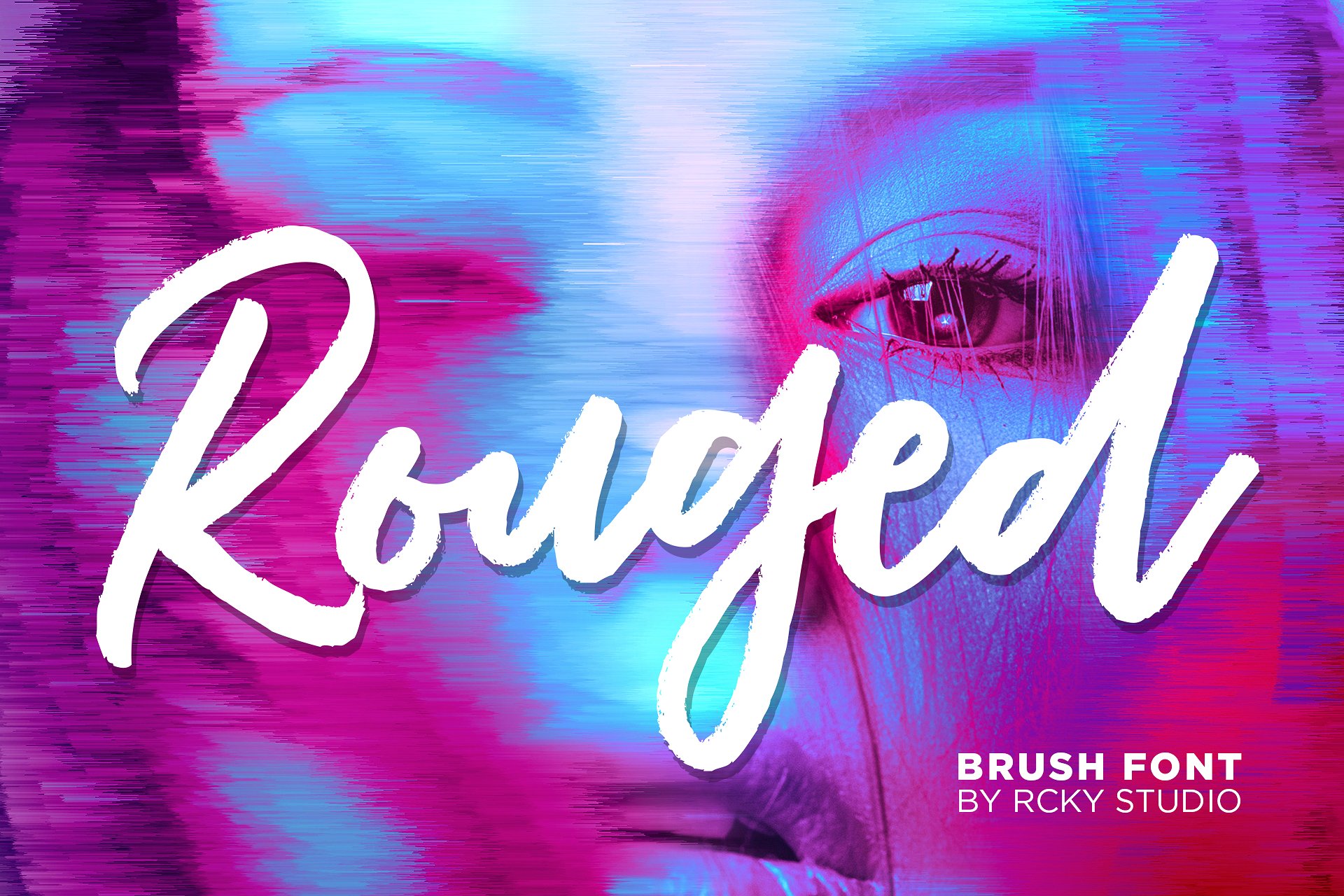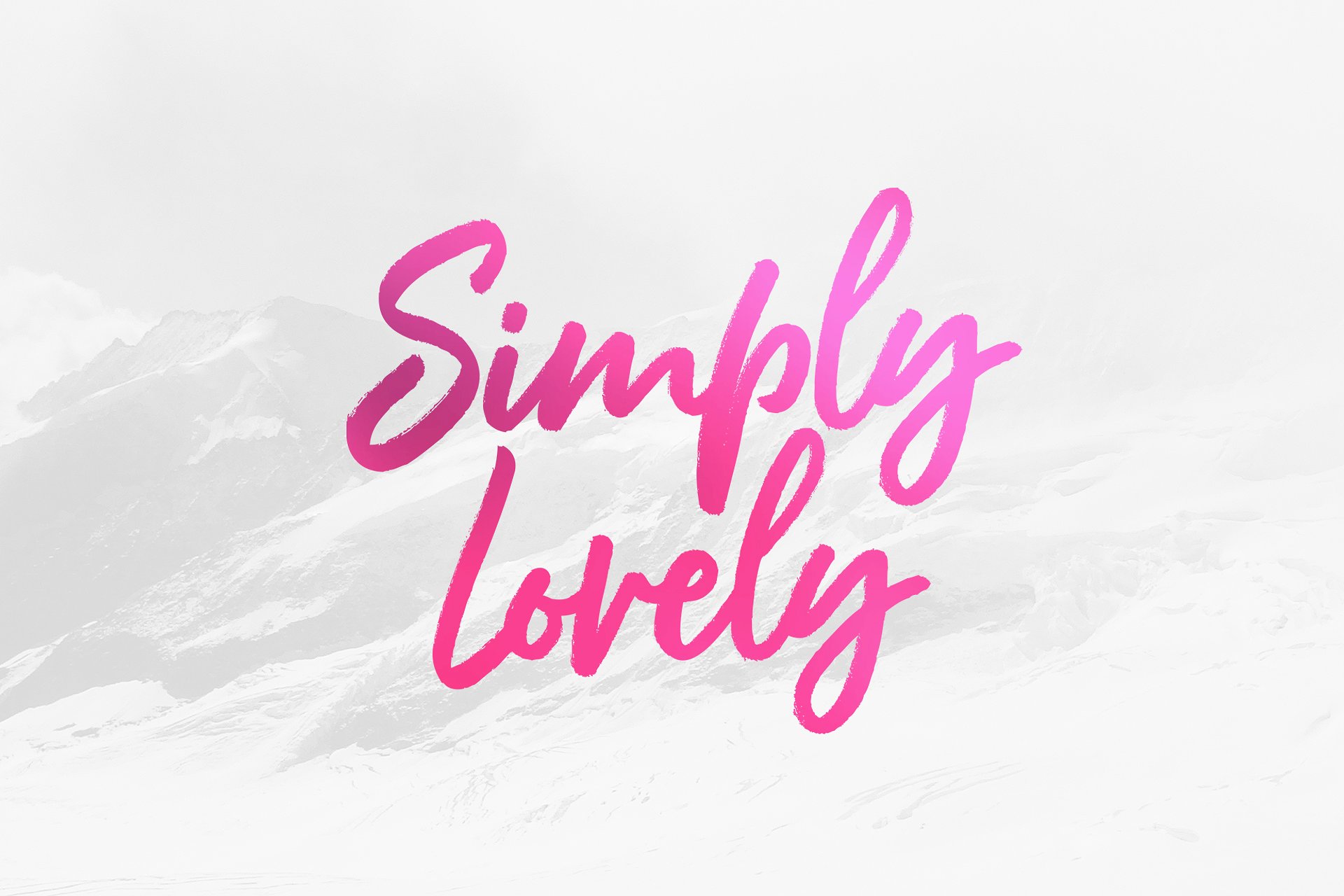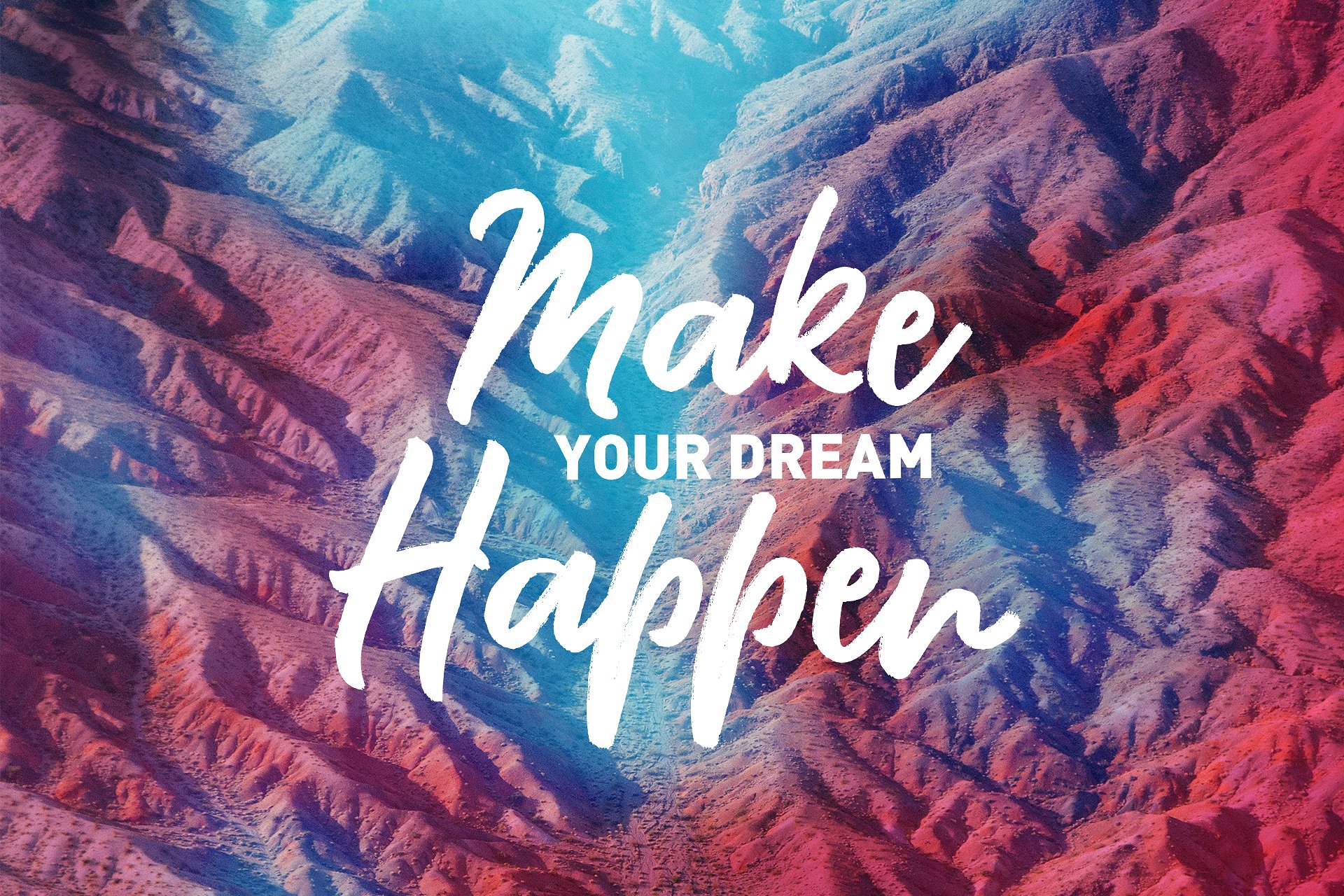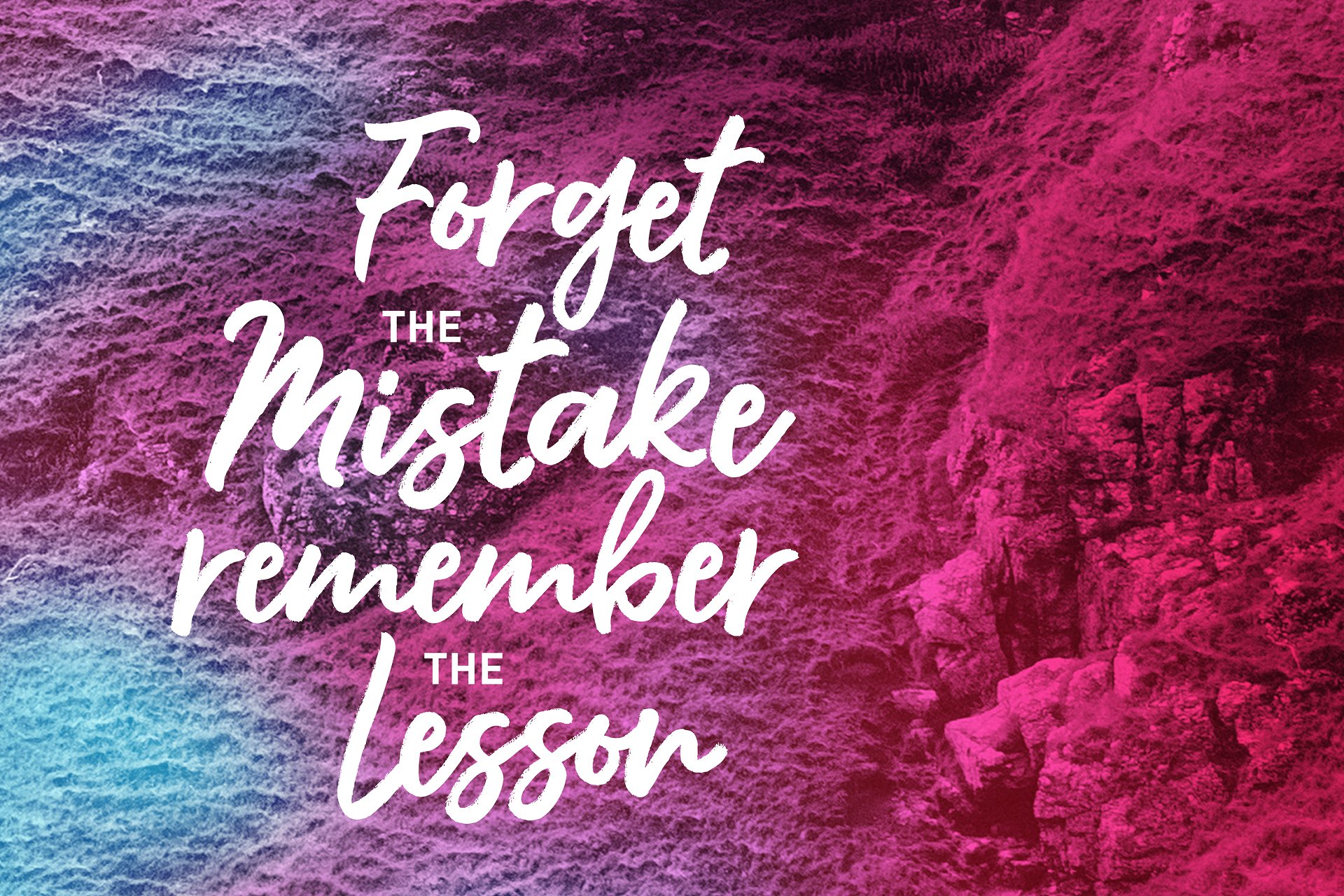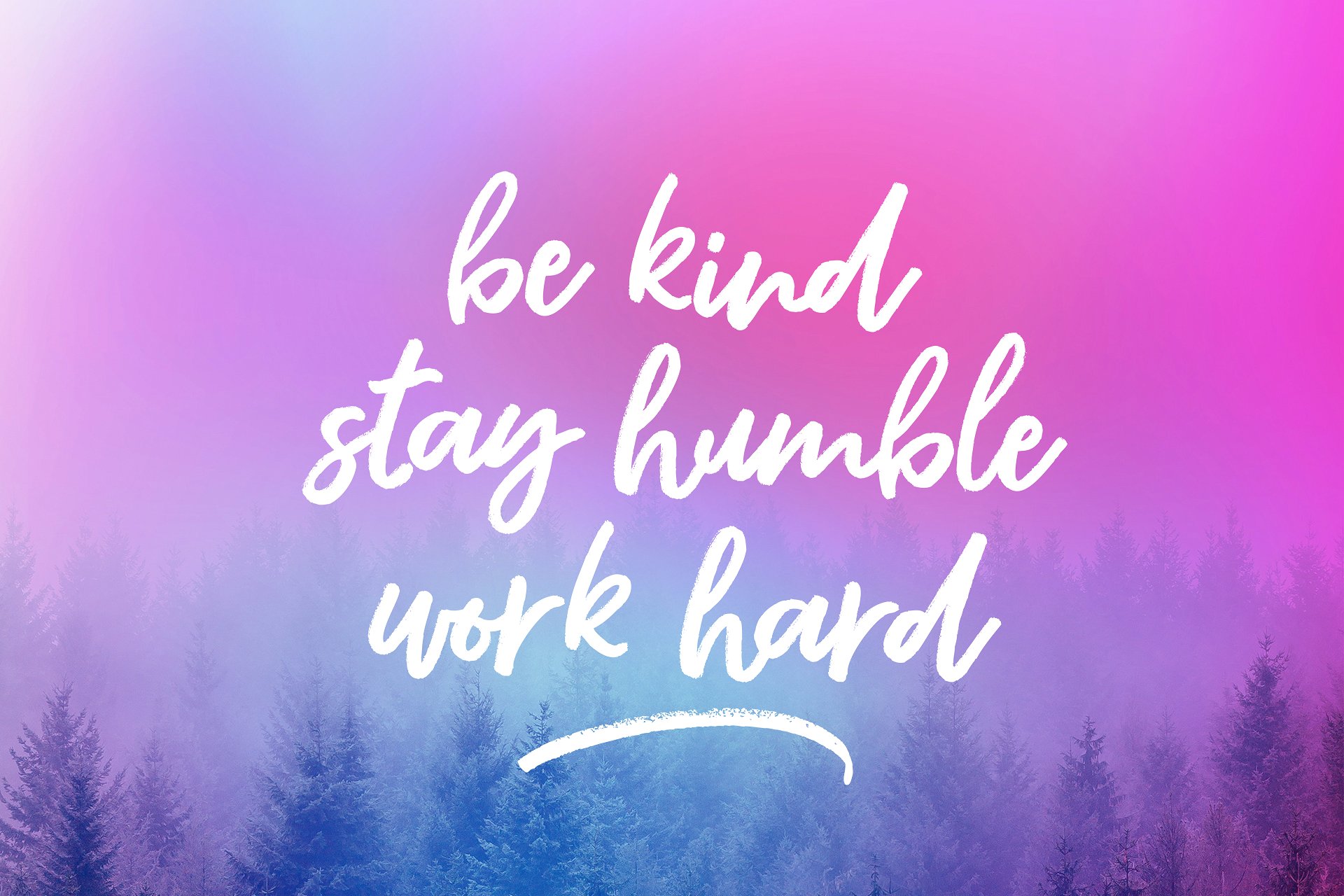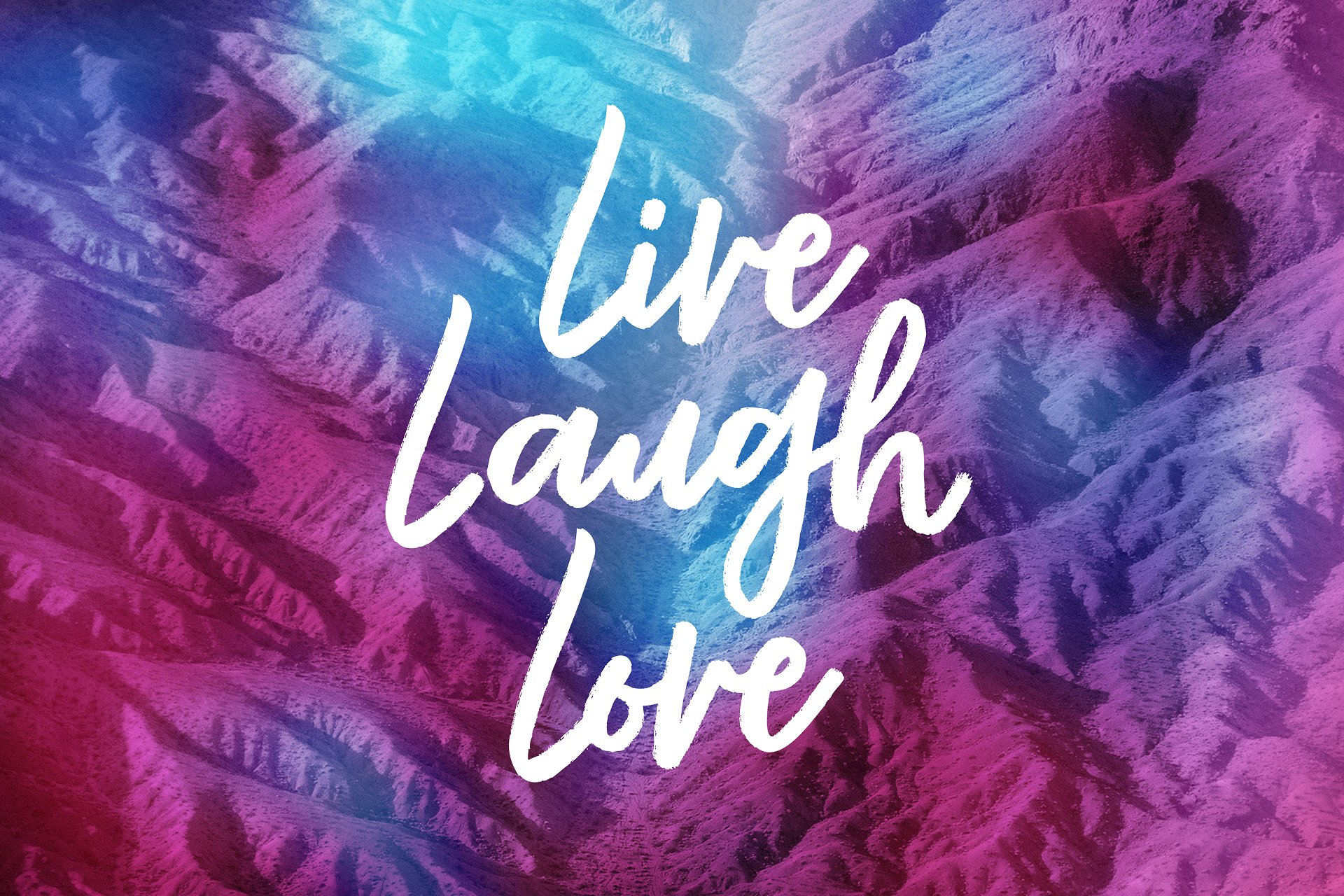
Rouged Font
About Rouged Font
This modern script style will satiate even the most discerning of typophiles. Thick weight, clean curvature yet easy, this script can be used to complement many designs.
Add Rouged Brush, a commandeering script, to your font collection.